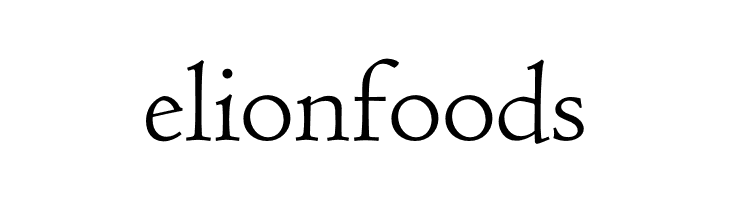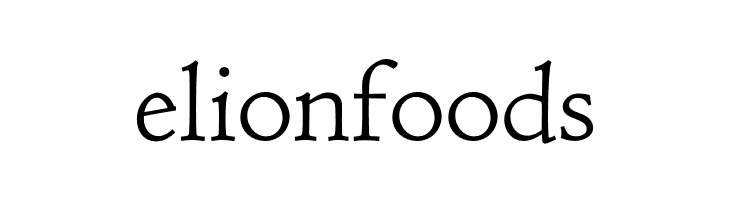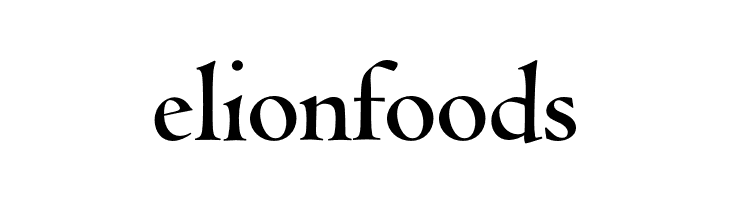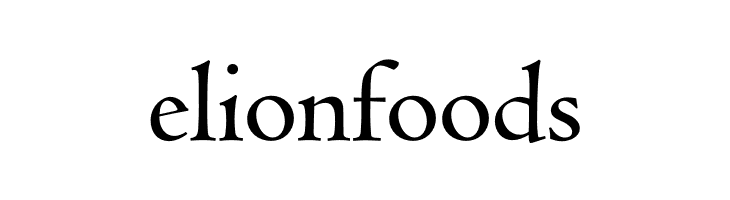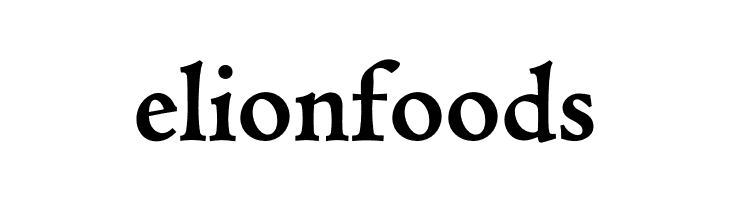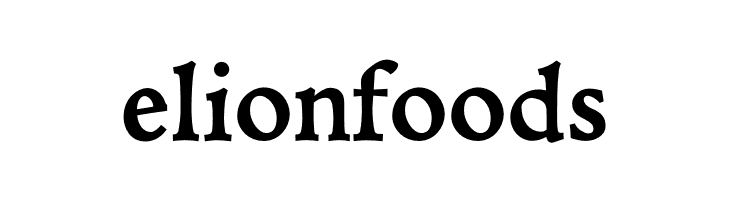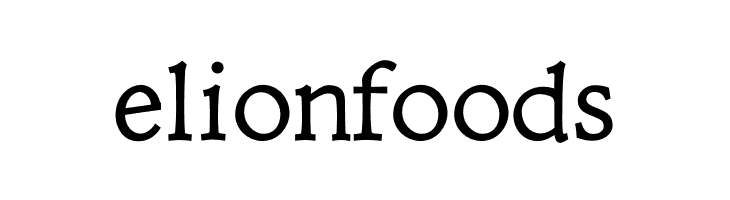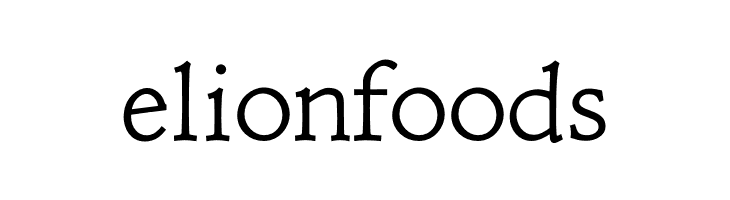
A classic serif font with a light, elegant style and refined details.
A classic serif font with elegant, well-defined characters and subtle serifs.
A bold, high-contrast serif font with elegant curves and dramatic serifs.
A classic serif font with elegant curves and a semi-bold weight.
A bold, serif font with a hand-crafted, distinctive style.
A bold, serif font with angular serifs and a strong, distinctive style.
A bold, classic serif font with high contrast and angular serifs.
A bold serif font with a handcrafted, slightly irregular style.
A classic serif font with a vintage flair, offering elegance and readability.
A classic serif font with light weight and elegant, elongated characters.